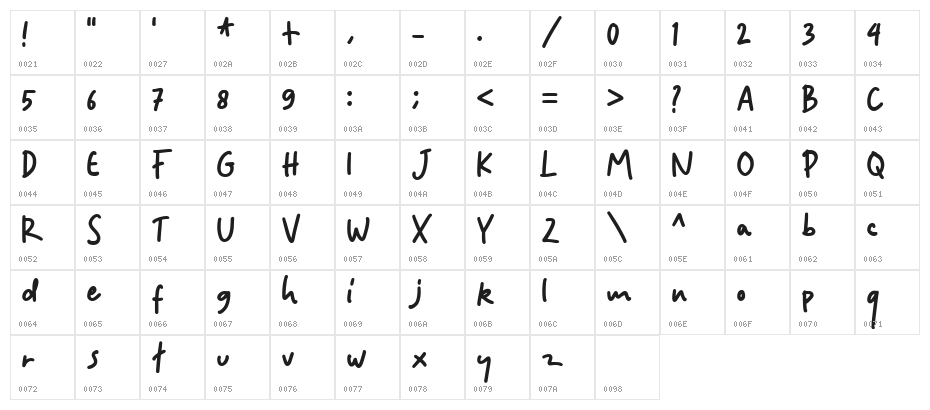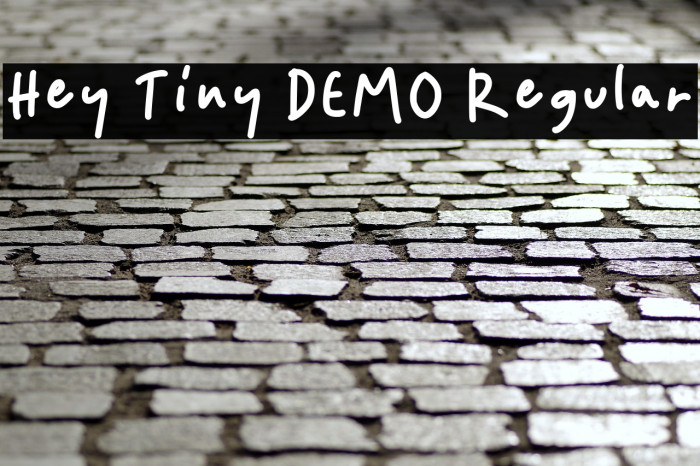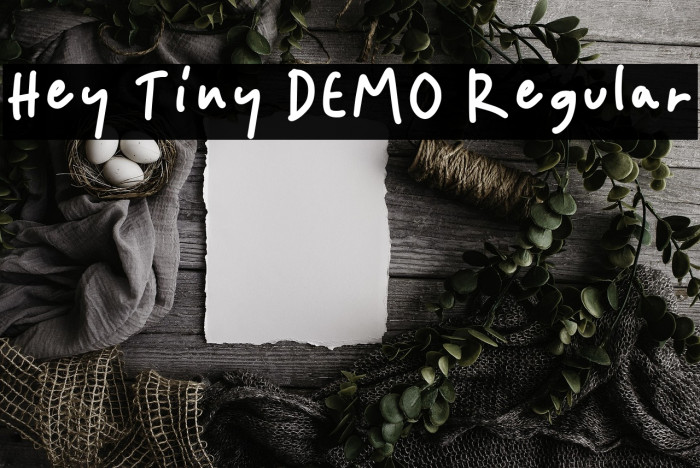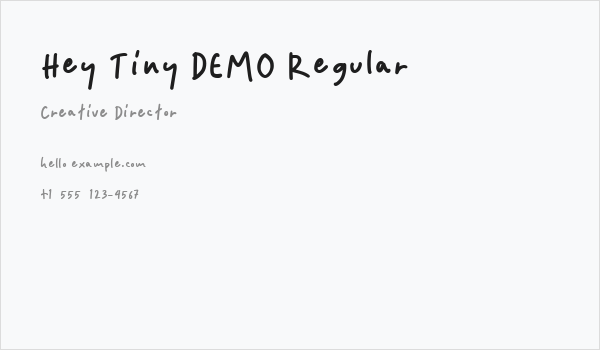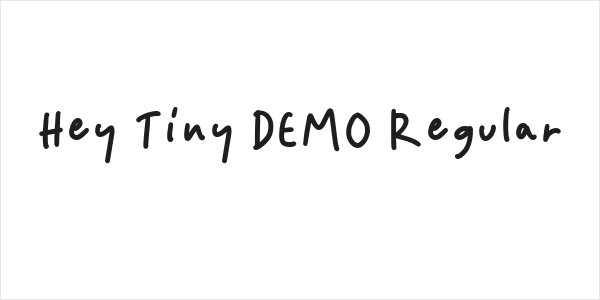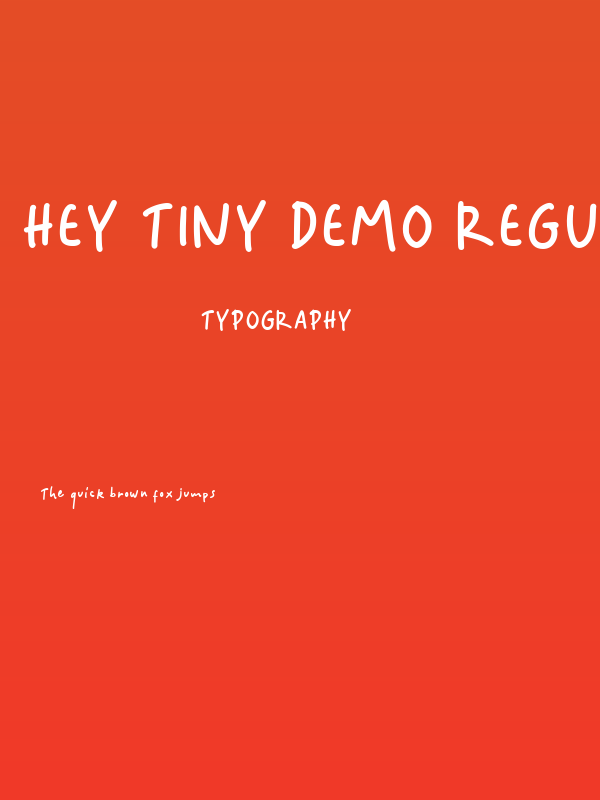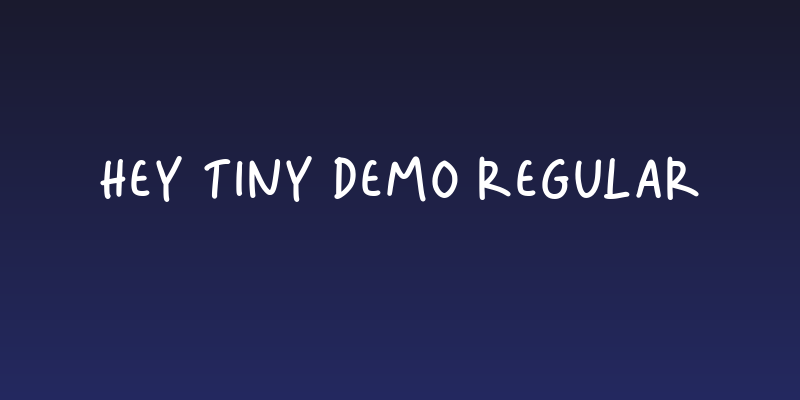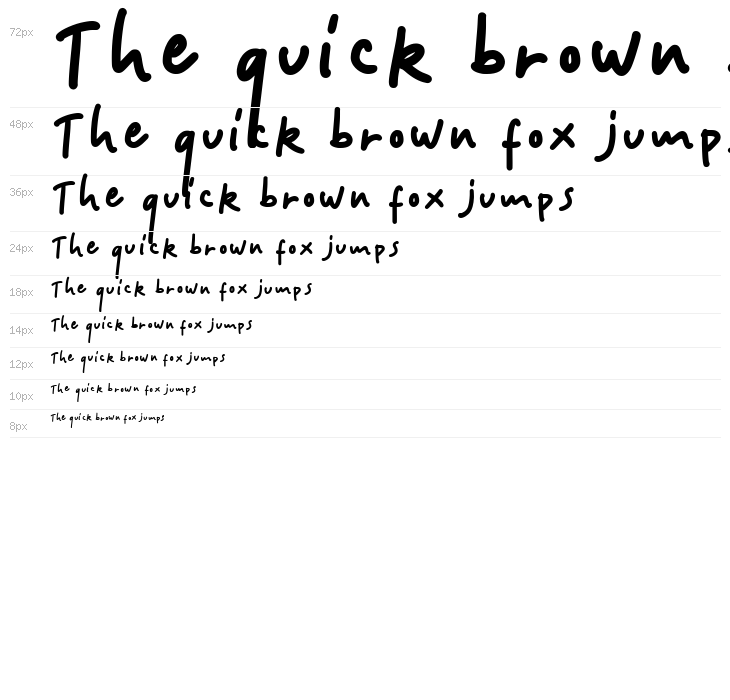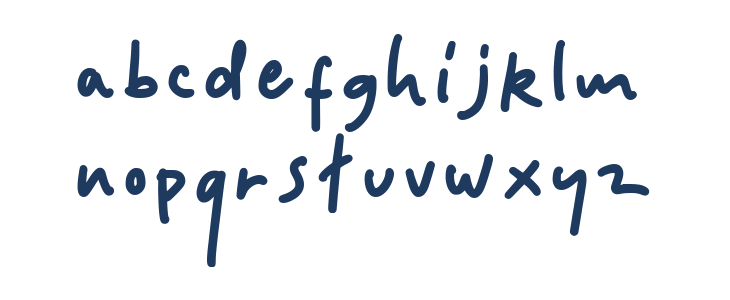
Hey Tiny DEMO Regular Font
Hey Tiny DEMO Regular Description
This font exhibits a playful and casual handwritten style, characterized by its uneven strokes and organic flow. The letters are slightly irregular, giving a personal and informal touch, reminiscent of quick, spontaneous writing. The uppercase and lowercase letters maintain a consistent style, with rounded edges and a relaxed appearance. The numerals and special characters follow the same informal aesthetic, making the font suitable for projects that require a friendly and approachable feel.
| Proposed Projects | Ideal for greeting cards, personal notes, informal invitations, and creative projects that require a personal touch. |